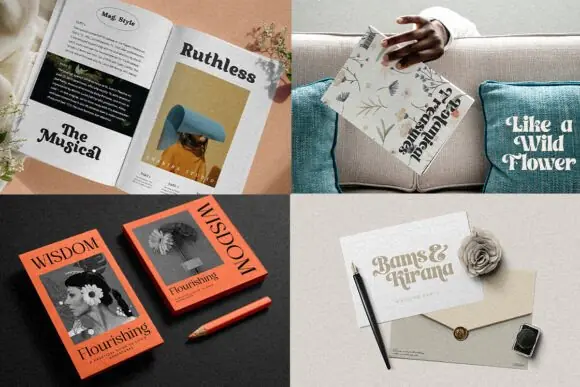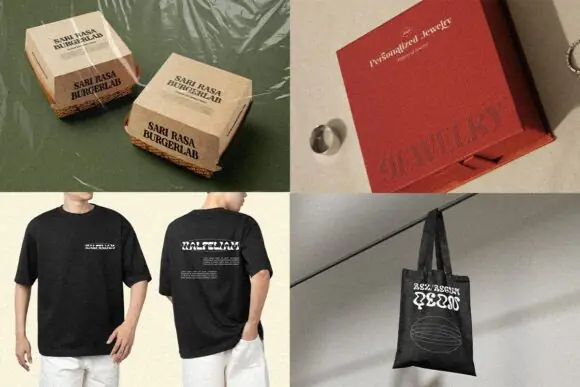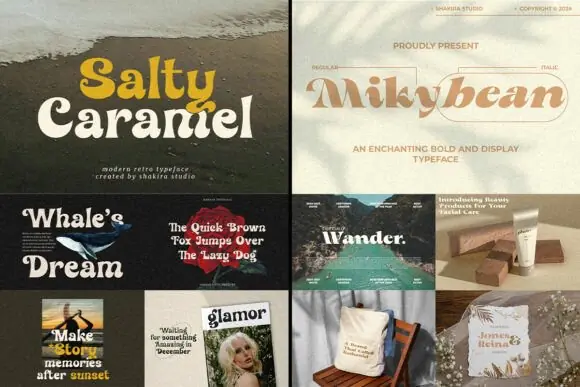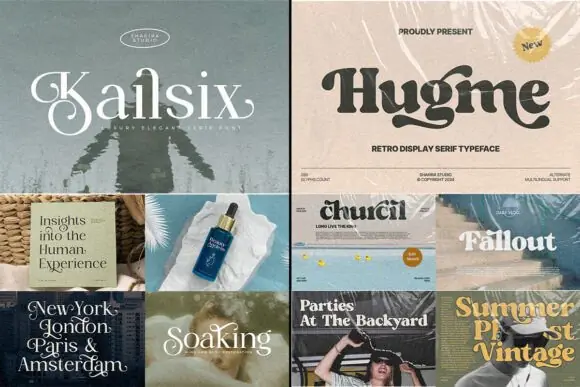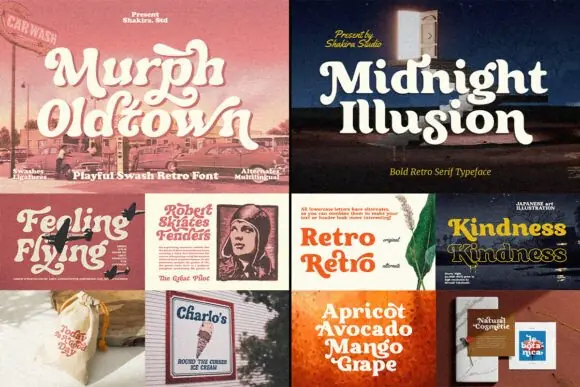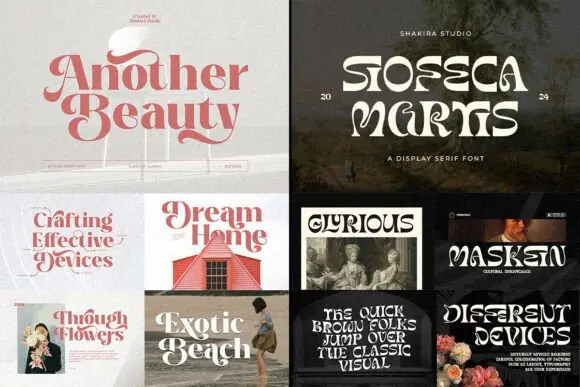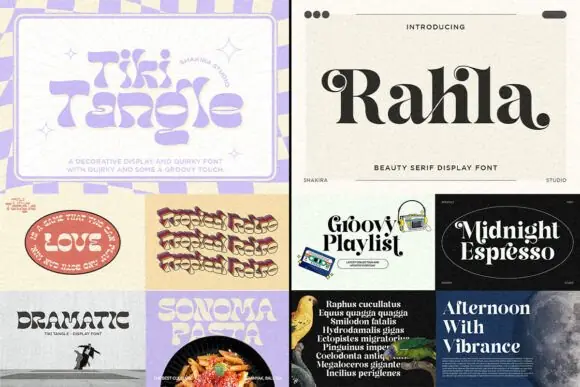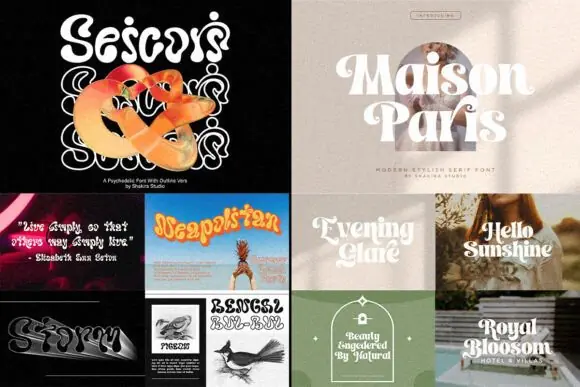
Retro Bundle Collection Font Pack – Modern Retro Fonts with Tails for Boho, Groovy, Cricut, Canva, Procreate, Wedding Invitations, Logos, Branding, Posters, T-Shirts & Social Media Designs
Create stylish, nostalgic, and eye-catching designs with the Retro Bundle Collection Font, a modern retro font pack filled with beautiful typefaces for creative projects, branding, and digital design work. This bundle brings together multiple best-selling retro fonts in one collection, making it a valuable choice for designers who want variety, flexibility, and a trendy vintage-inspired look.
The Retro Bundle Collection is perfect for creating stylish logotypes, brand identities, wedding invitations, social media graphics, posters, t-shirt designs, fashion layouts, magazine titles, blogs, product packaging, stickers, Cricut projects, Canva designs, Procreate lettering, and SVG-based creative work. With its boho, groovy, and retro personality, this bundle helps your projects feel fashionable, warm, expressive, and professionally crafted.
This collection includes popular fonts such as Another Beauty, Hugme, Kailsix, Masion Paris, Midnight Illusion, Mikybean, Murph Oldtown, Rahla, Salty Caramel, Seicori, Siofeca Martis, and Tiki Tangle, giving you many options for different styles and design moods. Whether you are working on client branding, printable products, apparel graphics, wedding stationery, or social media templates, this retro font bundle gives you the creative freedom to build standout typography designs.
• Modern retro font bundle with multiple stylish typefaces
• Includes fonts with tails for decorative typography
• Great for boho, groovy, vintage, and retro-inspired designs
• Includes multiple best-selling fonts in one collection